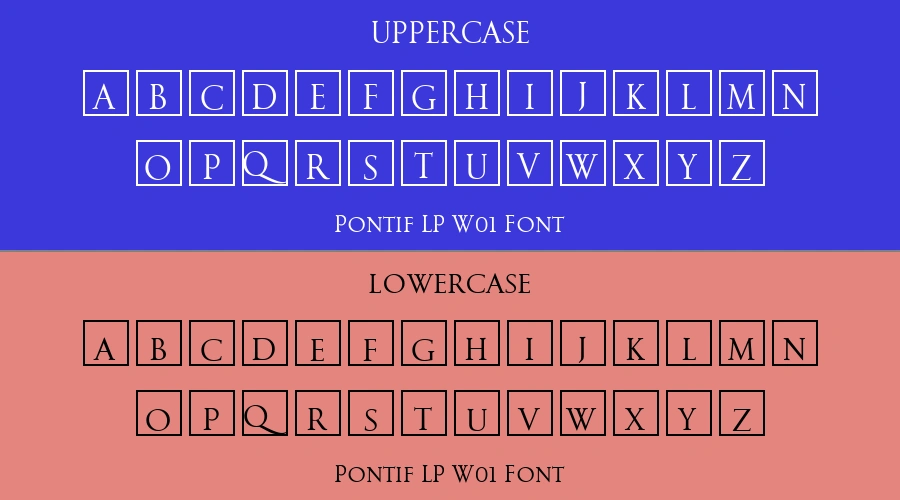
About Pontif LP W01 Font
Pontif LP W01 Font stands out for its distinctive combination of unique personality and visual appeal. Ideal for brand identities, it provides the longevity and brand power that professional projects demand. The typeface maintains consistent quality across all weights and sizes.
Key features include refined bracketed serifs and practical isolated forms, enhancing typographic expression. In campaign headers applications, Pontif LP W01 Font demonstrates exceptional purchase influence. The aperture size and professional credibility contribute to its distinctive character and professional appeal.